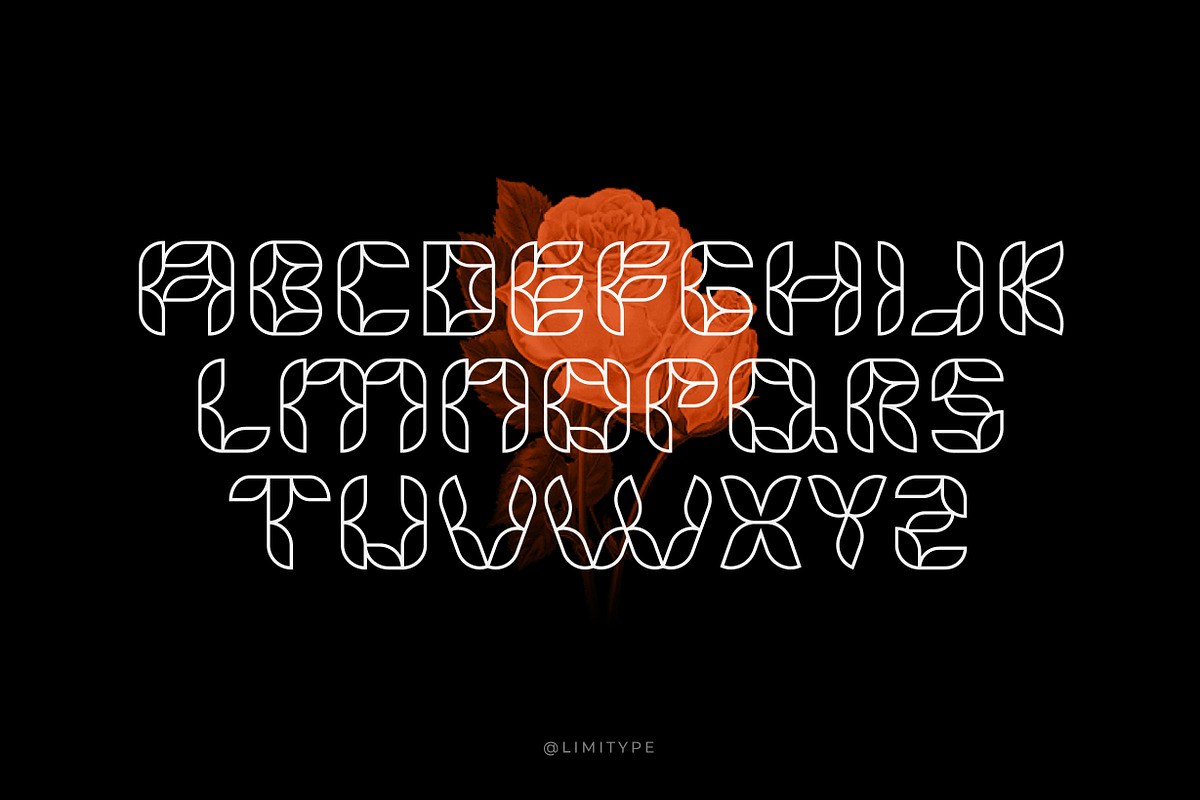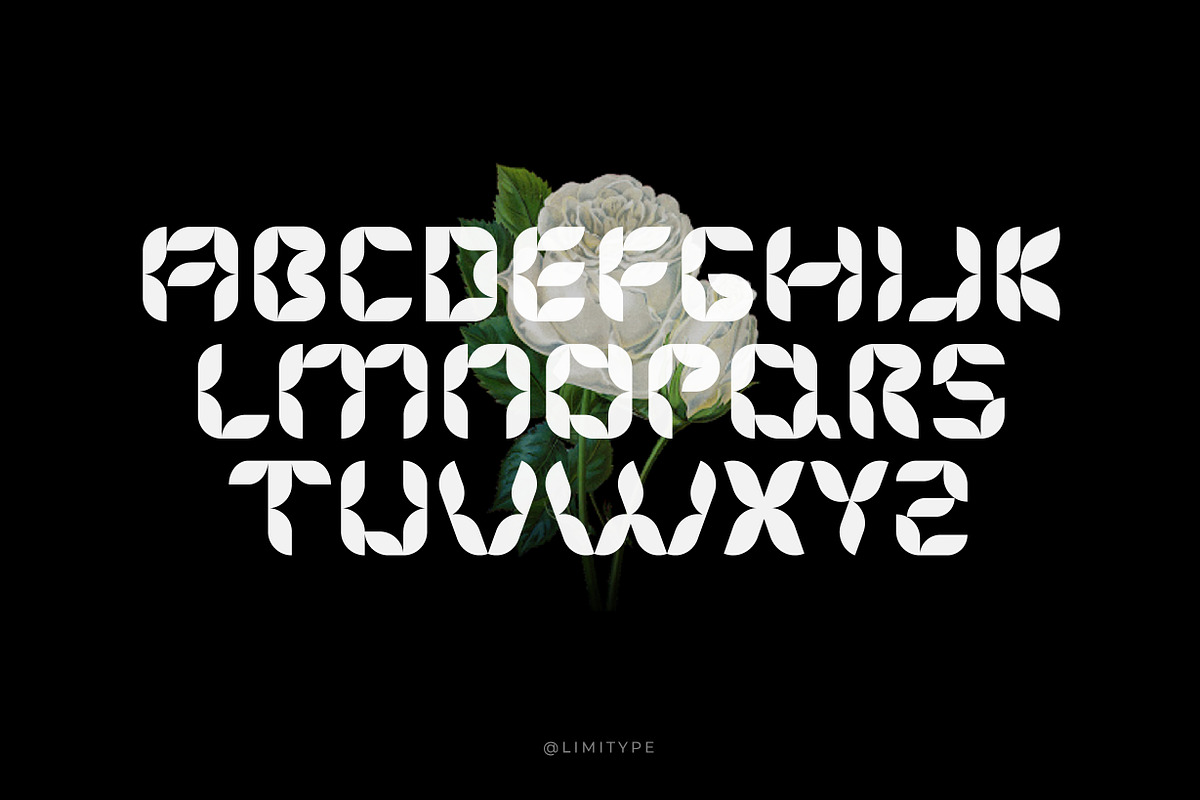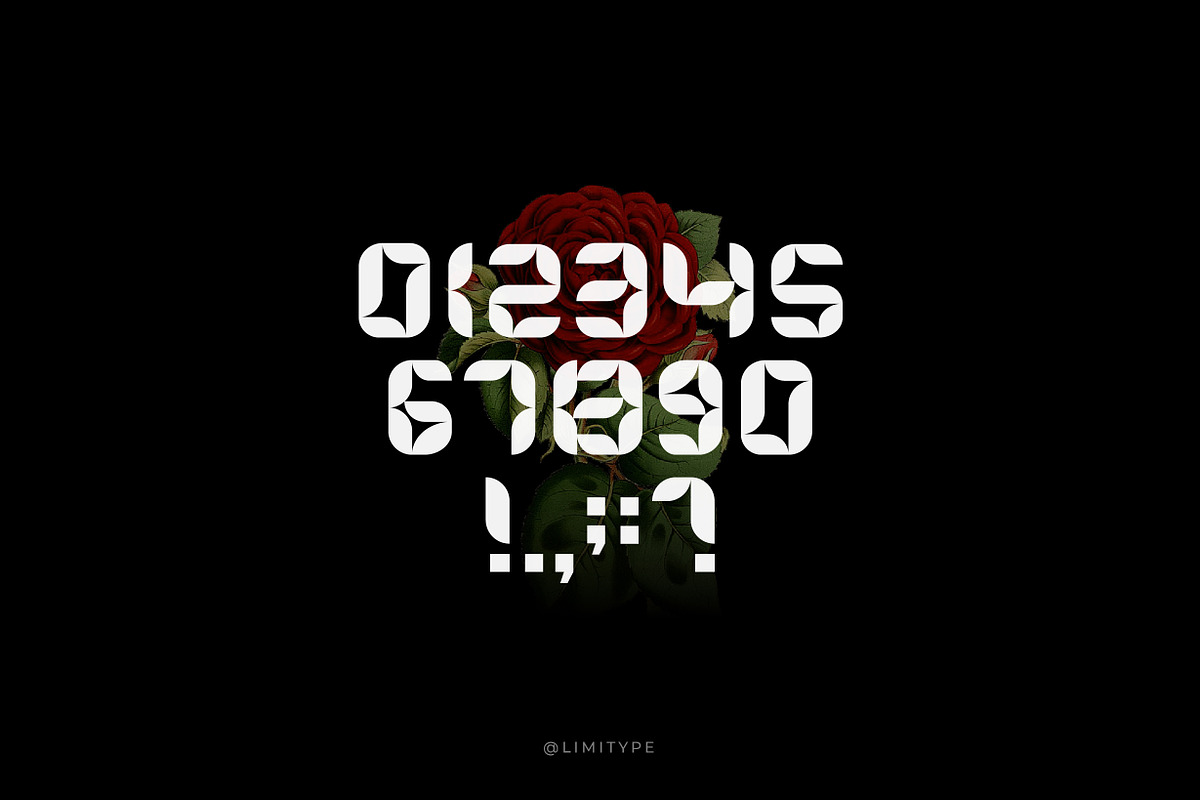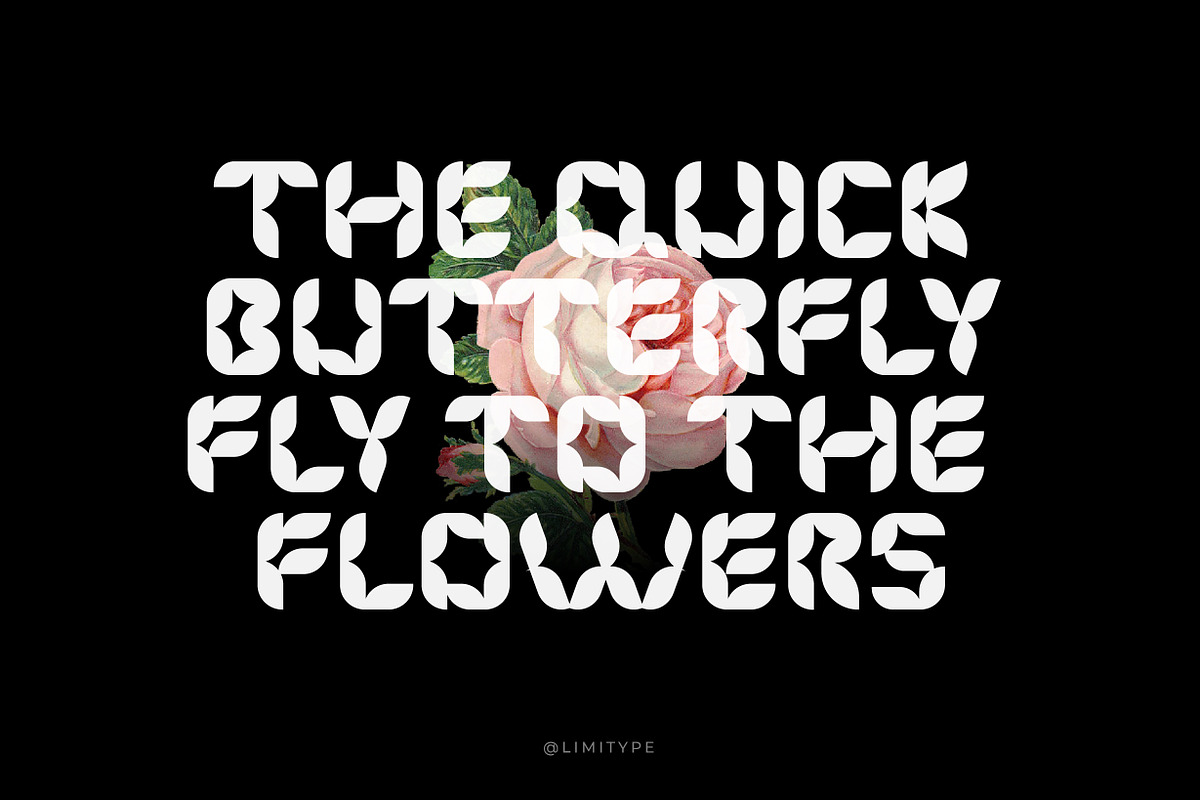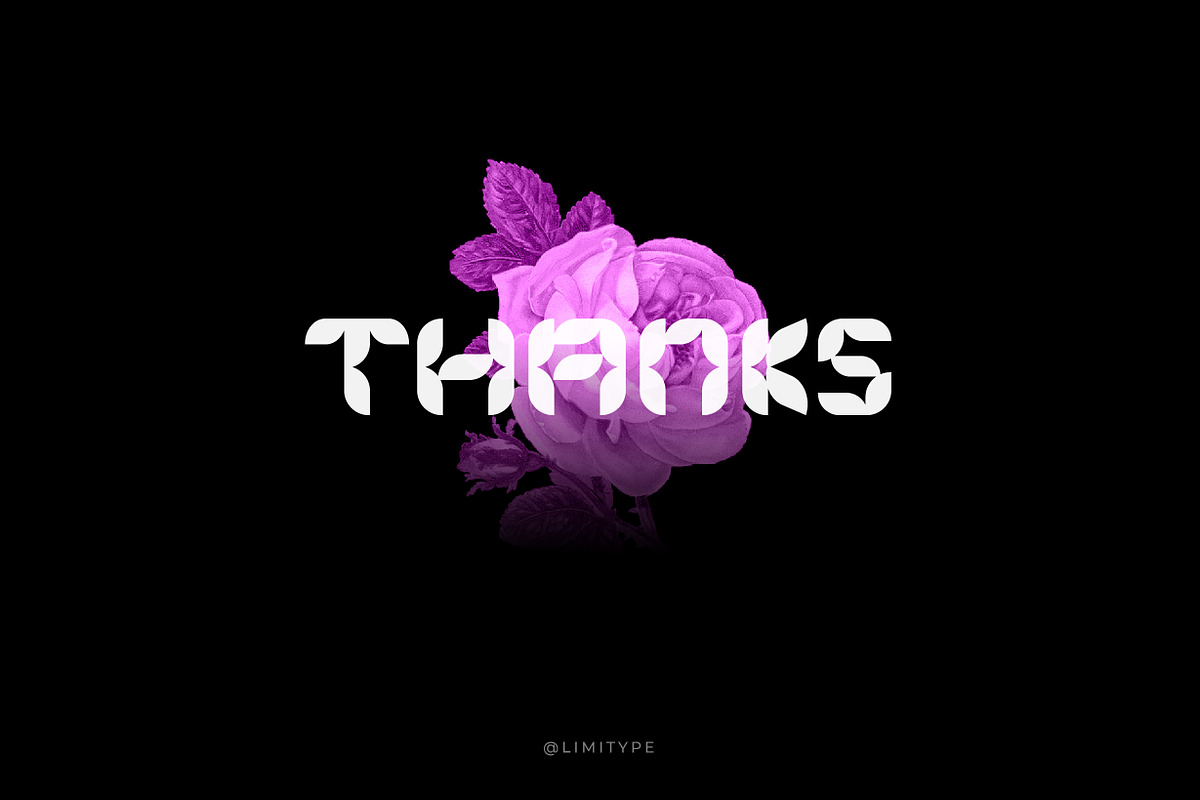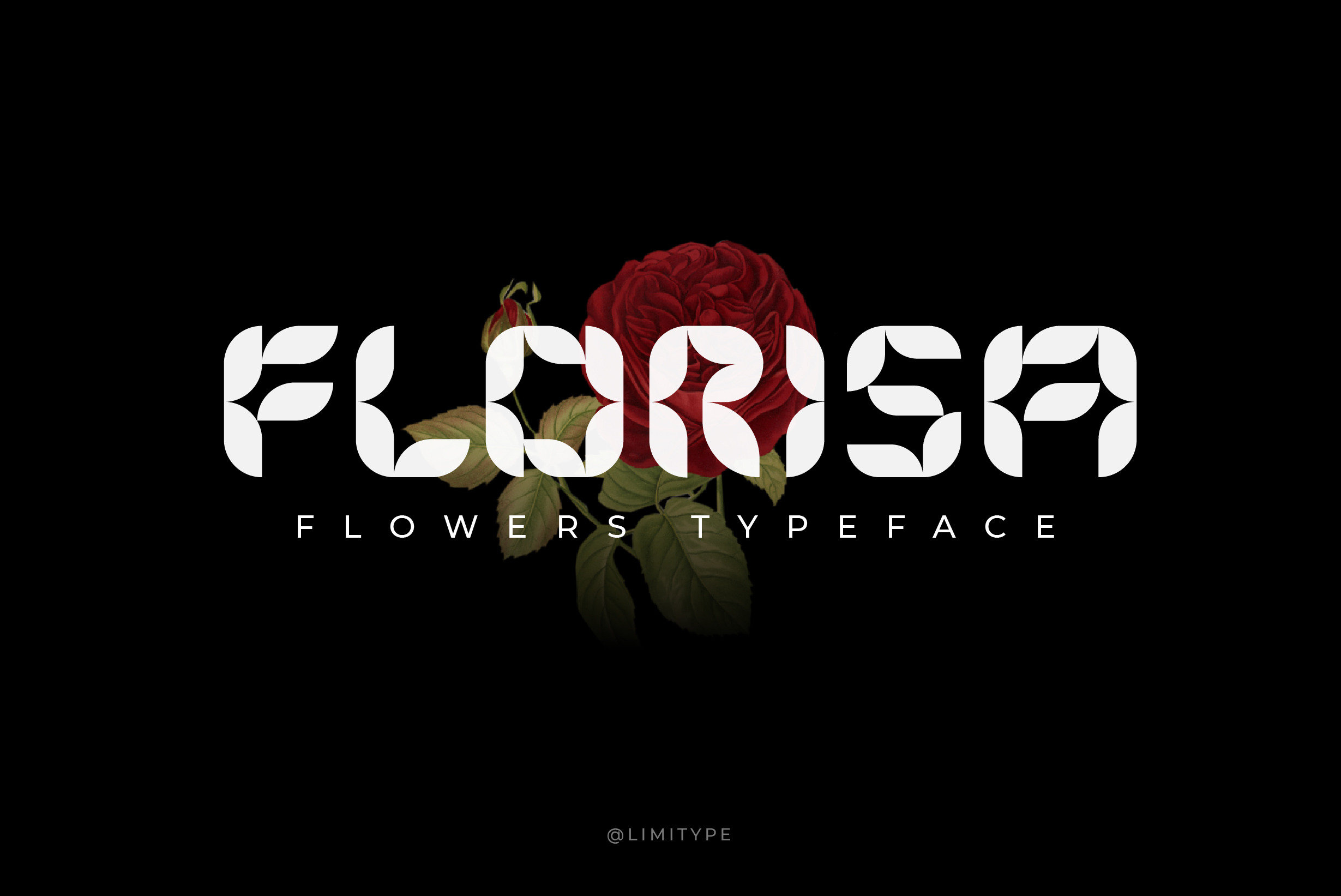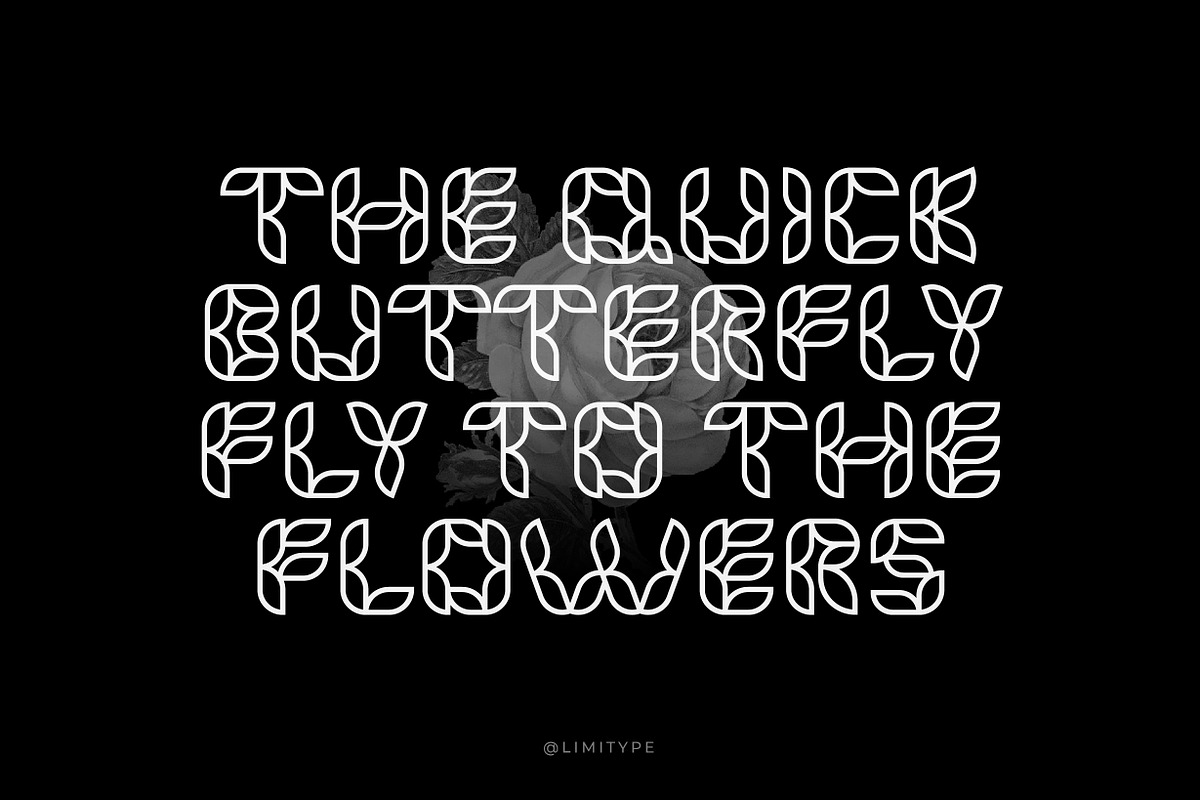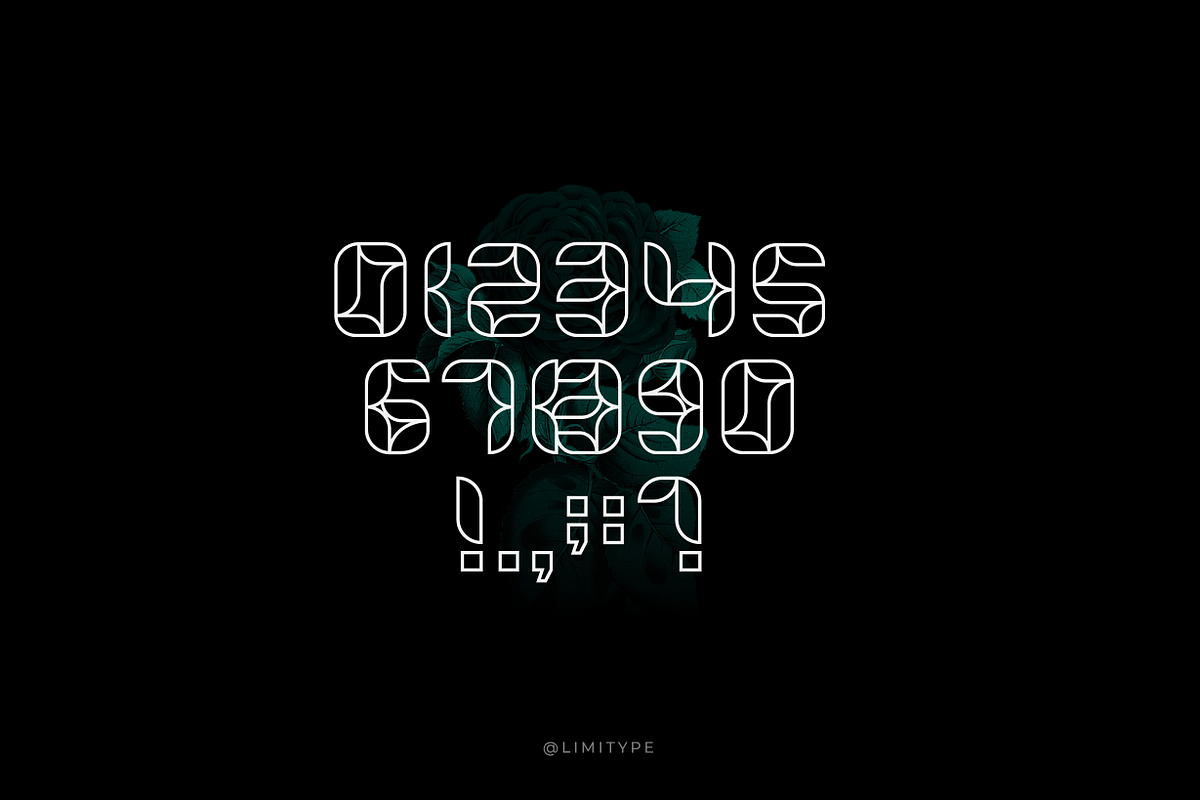
Florisa - Flowers font
Florisa is a typeface inspired by the unique shape of flower petals, which are made into unique letters. Florisa can be used for displays, headlines, logos etc. Florisa comes with capital letters, numbers and some symbols, and line version